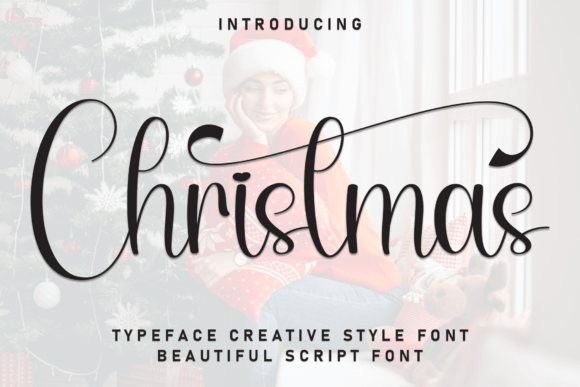
Introducing the Enchanting Christmas Font: A Whimsical Addition to Your Design Collection
Are you looking for a font that embodies the magic and wonder of the holiday season? Look no further than the Christmas Font, a meticulously handcrafted typeface designed to bring a captivating balance of affection and friendliness to your designs. This alluring font is perfect for anyone seeking to add a touch of whimsy to their creative projects, whether it’s a wedding invitation, greeting card, or festive holiday decor.
A Font that Radiates Joy and Festivity
The Christmas Font is imbued with a lively, radiant allure that effortlessly transforms it into the perfect choice for any design project requiring a splash of whimsy. Its unique, standalone digital design infuses your creations with magnetism and vigor, guaranteeing standout appeal and a lively dash to your designs. Whether you’re a designer, crafter, or DIY enthusiast, this enchanting font is sure to become a favorite in your collection.
Perfect for Whimsical Wedding Invites and Greetings
One of the most popular uses for the Christmas Font is in wedding invitations and greetings. Its playful, romantic charm makes it an ideal choice for couples looking to add a touch of magic to their special day. Imagine setting the tone for your wedding celebration with a beautifully designed invitation that features this captivating font. Your guests are sure to be enchanted by the whimsical charm of your wedding stationery.
Bringing Whimsy to Your Creative Projects
The Christmas Font is not just limited to wedding invitations and greetings. Its versatility makes it perfect for a wide range of creative projects, including:
• Festive holiday decor and signage
• Children’s party invitations and decorations
• Seasonal greeting cards and gift tags
• Whimsical stationery and journal pages
• Magical branding and packaging designs
What Sets the Christmas Font Apart
So, what makes the Christmas Font so unique? Here are just a few features that set it apart from other fonts:
• Handcrafted design: Each letter and character has been meticulously crafted to ensure a unique and whimsical feel.
• Lively and radiant: The font’s playful charm is sure to add a touch of magic to your designs.
• Versatile: The font can be used for a wide range of creative projects, from wedding invitations to holiday decor.